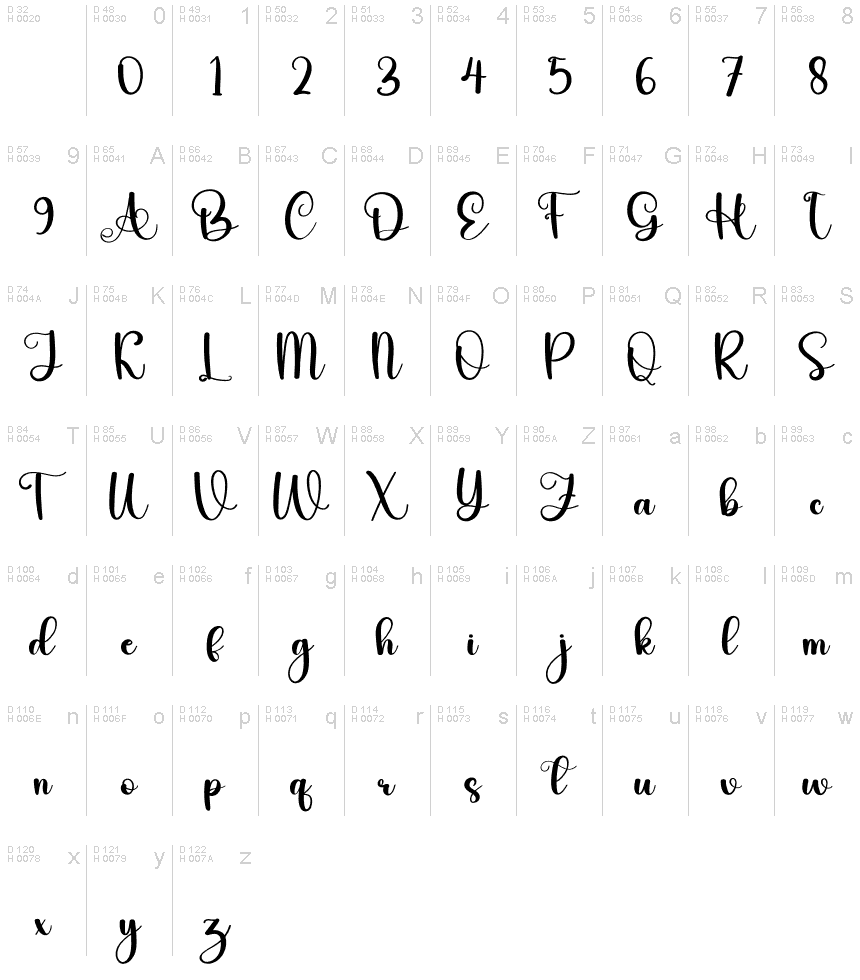
Higgland
Higgland, a captivating calligraphy font by Harlek Studio, adds an elegant touch to any project. With its semi-light weight, Higgland exudes grace and sophistication in every stroke.
Ideal for wedding invitations, feminine branding, and high-end fashion editorials, this typeface effortlessly conveys a sense of timeless beauty. Its fluid lines and delicate curves create a harmonious balance that appeals to both traditional and modern aesthetics.
Elevate your designs with the enchanting allure of Higgland, where artistry meets refinement.